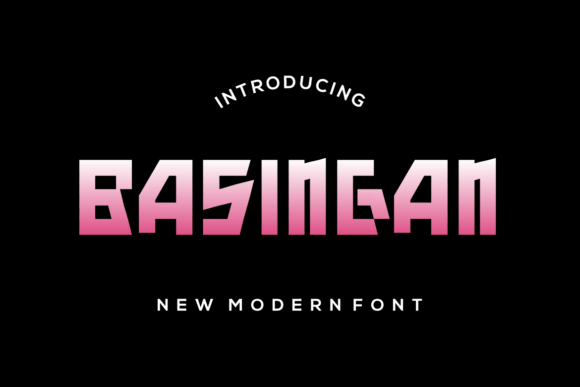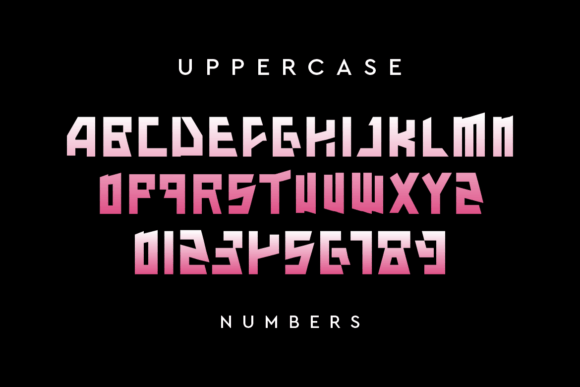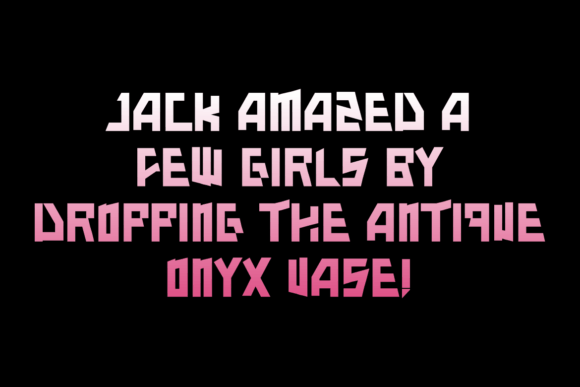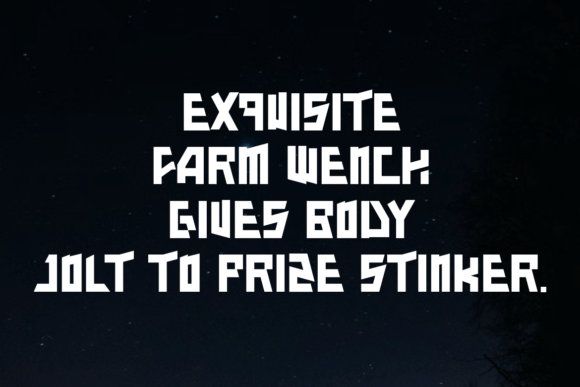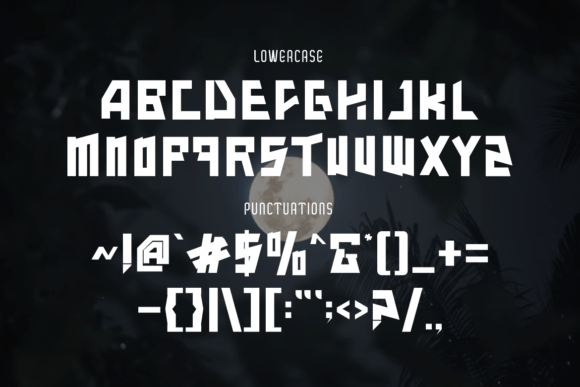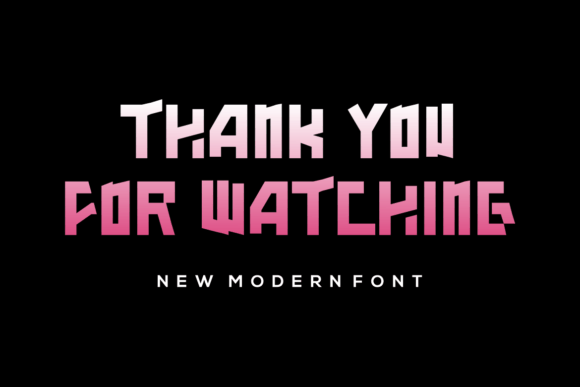
Basingan Font: Elevate Your Design with Elegance and Sophistication
In the world of typography, a font can make or break a design. For designers and crafters looking for a bold, yet elegant and modern font, Basingan is an excellent choice. This stunning display font is perfect for a wide range of projects, from signature and stationery to logo design, wedding typography, and more. In this article, we’ll dive into the world of Basingan Font, exploring its features, uses, and benefits.
The Beauty of Basingan Font
Basingan Font is a bold display font that exudes beauty, class, elegance, and modernity. Its unique design makes it an excellent choice for designers and crafters looking to add a touch of sophistication to their work. Whether you’re creating a logo, website header, or packaging design, Basingan Font is sure to impress.
One of the standout features of Basingan Font is its versatility. This font is perfectly suited for a wide variety of projects, including:
- Signature and stationery design
- Logo design
- Wedding typography and invitations
- Magazine or book covers
- Website headers and banners
- Clothing and apparel design
- Typography quotes and posters
With Basingan Font, you can create stunning designs that are sure to capture the attention of your audience.
Key Features of Basingan Font
So, what makes Basingan Font so special? Here are some of its key features:
- Bold and elegant design: Basingan Font boasts a bold and elegant design that’s perfect for making a statement.
- Modern and sophisticated: This font has a modern and sophisticated feel that’s sure to elevate your design.
- High-quality and scalable: Basingan Font is designed to be high-quality and scalable, making it perfect for use in a variety of projects.
- Easy to read: Despite its bold design, Basingan Font is easy to read, making it perfect for use in body text and headlines.
Why Choose Basingan Font?
With so many fonts available, why choose Basingan Font? Here are just a few reasons:
- Unique design: Basingan Font has a unique design that’s sure to set your work apart from the crowd.
- Versatility: This font is versatile and can be used in a wide range of projects.
- Elegance and sophistication: Basingan Font exudes elegance and sophistication, making it perfect for high-end designs.
Tips for Using Basingan Font
Here are a few tips for using Basingan Font in your designs:
- Use it sparingly: Basingan Font is a bold font, so use it sparingly to avoid overwhelming your design.
- Pair it with other fonts: Experiment with pairing Basingan Font with other fonts to create a unique and interesting design.
- Adjust the size and color: Play around with the size and color of Basingan Font to create a design that’s tailored to your needs.